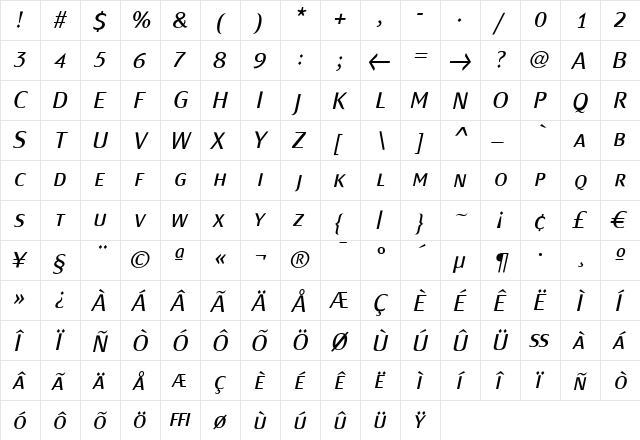
MondialPlus Light Italic Caps Regular
Design Context for MondialPlus Light Italic Caps Typeface
MondialPlus Light Italic Caps takes a measured approach to typography — its balanced proportions and neutral character make it a reliable workhorse for both digital and print work. The dynamic lean of this cut emphasises speed and emphasis in any layout. The delicate stroke weight brings airiness and refinement to layouts.
Pro Tip: Use MondialPlus Light Italic Caps for emphasis, pull quotes, and subheadings where its slanted energy can add rhythm to the layout.